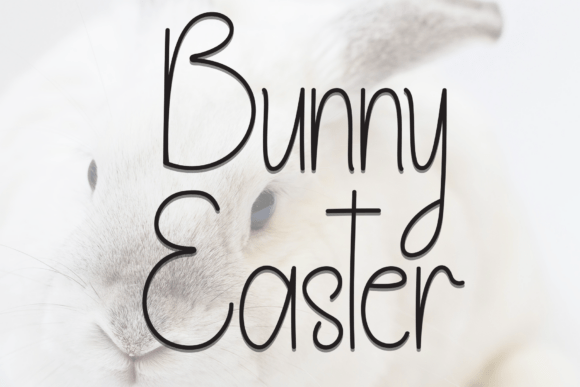
The Easter Bunny of Fonts: A Deep Dive into Bunny Easter
I still remember the Easter project that made me fall in love with the Bunny Easter font. I was working on a whimsical Easter-themed invitation for a client, and I was struggling to find the perfect font that would capture the playful yet elegant vibe of the holiday. That’s when I stumbled upon Bunny Easter, a stylish handwritten script font that instantly brought my design to life. Its fluid strokes and charming curves added a personal touch to the invitation, making it truly special.
An Honest Review of Bunny Easter
• ✅ Modern elegance with a playful twist: Bunny Easter seamlessly blends sophistication with a touch of whimsy, making it perfect for a wide range of design projects.
• ✅ Fluid strokes and charming curves: The font’s smooth, flowing lines give it a personal and approachable feel that’s hard to find in digital fonts.
• ✅ Versatile and adaptable: Whether you’re designing a logo, packaging, or an invitation, Bunny Easter adds a touch of warmth and creativity to every project.
While Bunny Easter is an amazing font, there are a few things to keep in mind:
• 🤔 Legibility at small sizes: Like many script fonts, Bunny Easter can be a bit tricky to read at very small sizes. It’s best used at larger sizes where its elegant strokes can shine.
• 🤔 Overuse of swashes: While the font’s swashes and stylistic alternates are beautiful, overusing them can make your text look cluttered. Use them sparingly to add emphasis and elegance.
The Story Behind Bunny Easter
Bunny Easter was inspired by the playful, carefree spirit of spring. Its creator, a passionate typographer, aimed to capture the essence of Easter – a time for renewal, joy, and whimsy. The result is a font that’s both elegant and fun, perfect for designers looking to add a touch of personality to their work.
Q: Is Bunny Easter suitable for body text?
A: While Bunny Easter is beautiful, it’s best used for headings or short paragraphs due to its script nature. For longer body text, a more traditional serif or sans-serif font might be more readable.